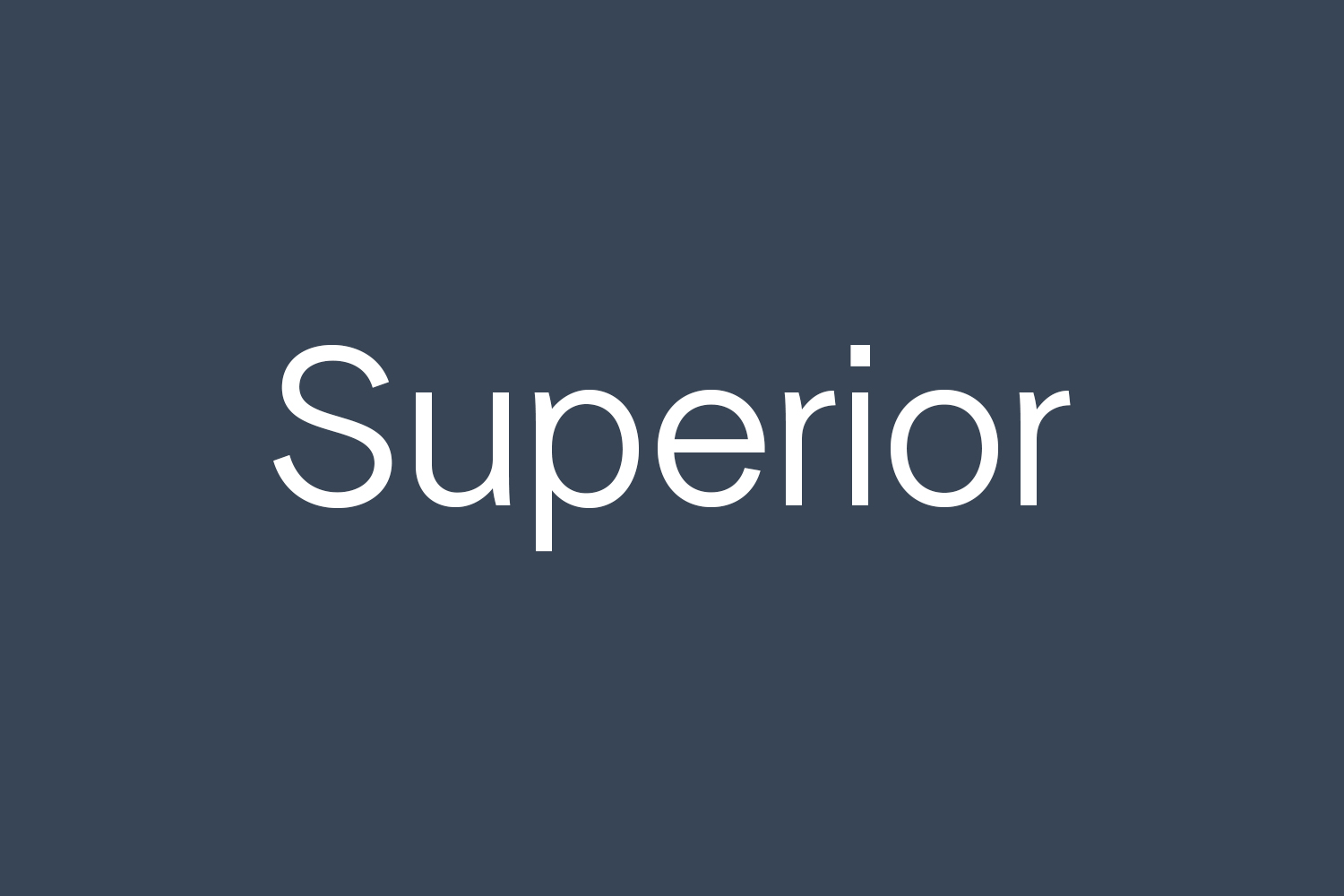
Superior Free Font Family offers a sleek and structural geometric sans-serif design across four styles. Embracing the principles of basic geometric shapes, LT Superior is crafted for elegance, readability, and versatility, making it perfect for both detailed body text and impactful headlines. Download the font for free if you need it for personal use or purchase the full version for commercial use.
Designed by LyonsType
Superior Regular The quick brown fox jumps over the lazy dog
Superior Medium The quick brown fox jumps over the lazy dog
Superior Semi Bold The quick brown fox jumps over the lazy dog
Superior Bold The quick brown fox jumps over the lazy dog